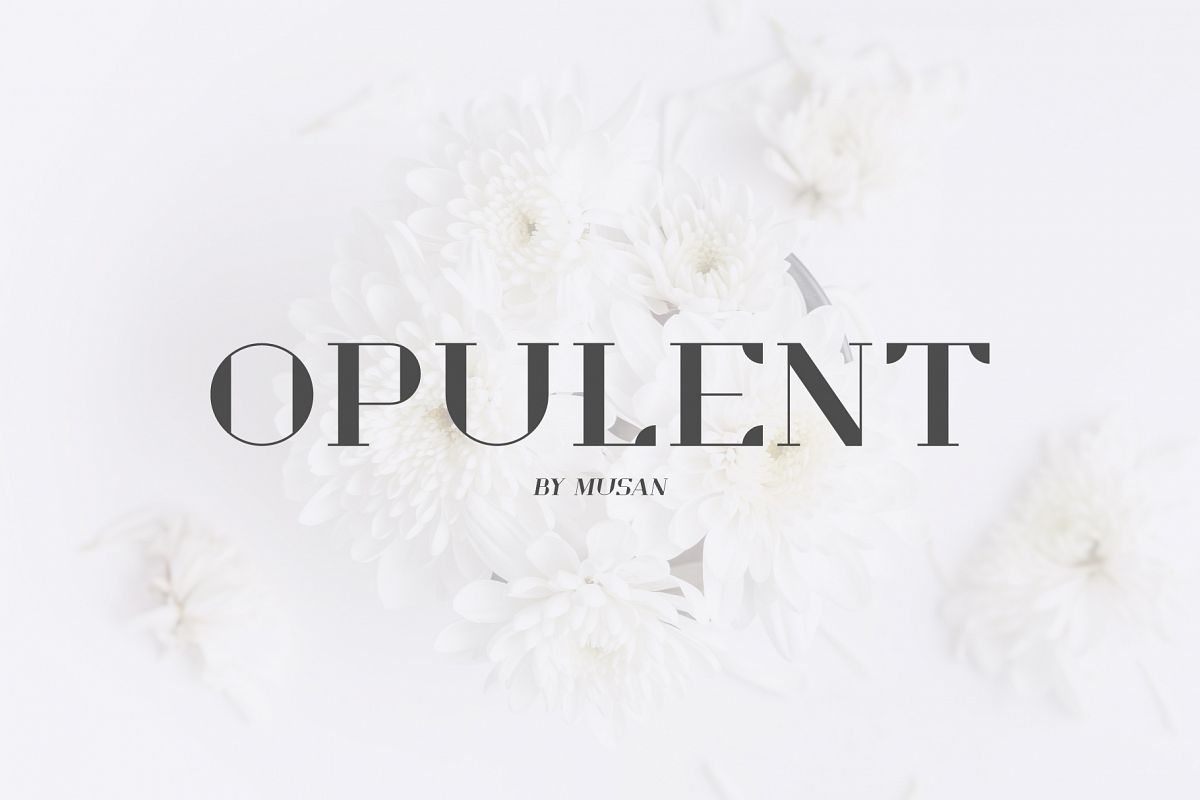
Opulent
Opulent is a modern, minimal and classy serif font that is perfect for all your project. This font would pair perfectly with a script/signature or handwritten style text or as you can see in the images above, it looks fab by itself!This font contains:
• all uppercase alphabet
• numbers
• multi language
• basic punctuation